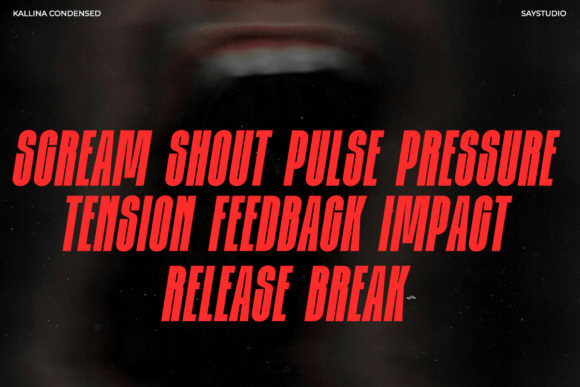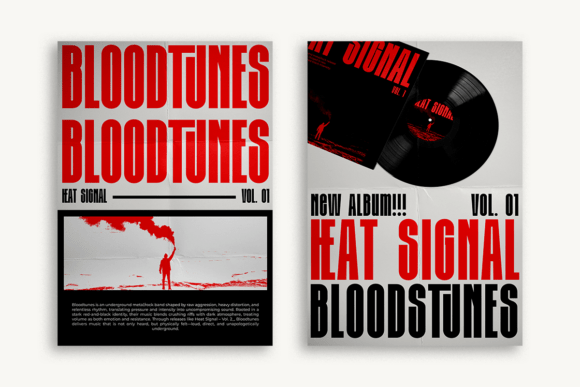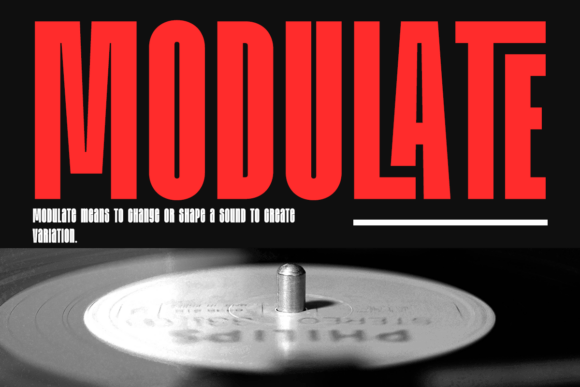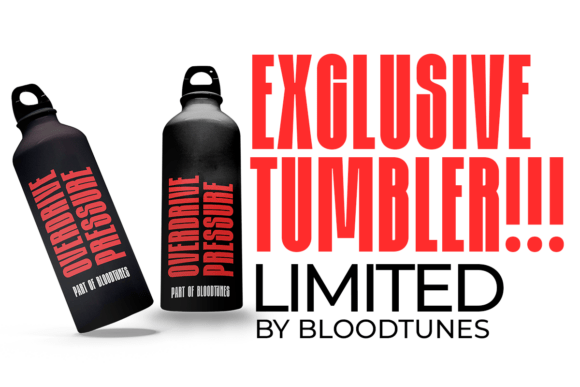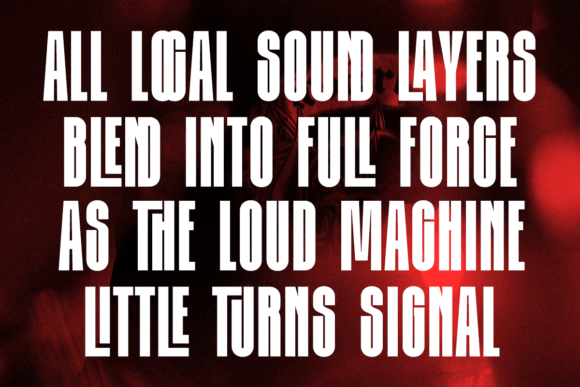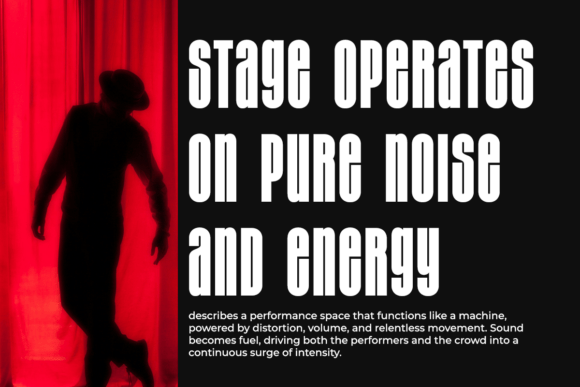
The Perfect Blend of Style and Substance: Unlocking the Power of Kalina Condensed Font
As designers, we’ve all been there – staring at a blank canvas, trying to craft the perfect visual statement that captures the essence of our brand or message. The pressure to stand out in a crowded digital landscape can be daunting, but what if you had the perfect tool to help you cut through the noise?
Enter Kalina Condensed Font, an ultra-condensed display typeface designed to command attention and leave a lasting impression. With its bold structure and clean sans serif construction, Kalina Condensed Font is the perfect solution for designers looking to add a touch of modern edge to their work. Its versatility makes it ideal for a wide range of applications, from logos and packaging to posters and social media graphics.
By incorporating Kalina Condensed Font into your design arsenal, you’ll be equipped with a powerful tool that can help you create bold, statement-driven compositions that truly capture your audience’s attention.
Kalina Condensed Font Key Features
- Font Family: Kalina Condensed, a condensed sans-serif font with a modern and elegant design.
- Language Support: The font supports a wide range of languages, including Latin, Cyrillic, and Greek scripts.
- Unique Characteristics: Kalina Condensed features a unique condensed design with a high x-height, making it perfect for headlines and titles.
Kalina Condensed Font Review
As a designer, I’ve had the chance to work with various fonts, and Kalina Condensed is one that caught my attention. Here’s my honest review:
- Unique Character**: Kalina Condensed has a distinctive, condensed feel that sets it apart from other sans-serif fonts. Its compact shape makes it perfect for headlines and titles.
- Legibility**: The font is highly legible, even at smaller font sizes. This is due to its well-balanced letterforms and clear spacing between characters.
- Style Versatility**: Kalina Condensed works well in both modern and traditional designs. Its clean lines and geometric shapes make it suitable for a wide range of projects, from corporate identities to editorial designs.
- Limited Font Variations**: Kalina Condensed comes in a limited range of weights, which may not be suitable for projects requiring a wide range of font weights.
- Not Ideal for Small Text**: While Kalina Condensed is legible at smaller font sizes, it’s not the best choice for very small text. Its condensed shape can make it difficult to read at extremely small sizes.
Kalina Condensed is a solid choice for designers looking for a unique, condensed sans-serif font. While it has some limitations, its versatility and legibility make it a great addition to any font library. I would definitely recommend it for projects where a clean, modern look is desired.
Kalina Condensed is a versatile font that can be used in a variety of design projects, including:
- Website headers and footers
- Magazine and newspaper headlines